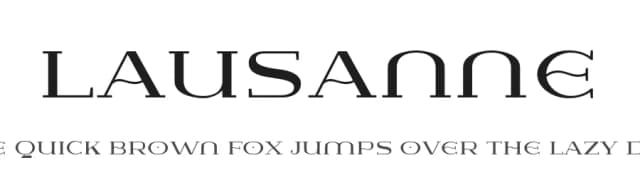
About Menscho Font
Menscho Specifications
| Designer | Situjuh Nazara |
Menscho Font is a versatile serif font that works for both headings and body text. Pair it with a contrasting sans-serif or slab serif font to add visual interest and a clear distinction between titles and body copy.
Menscho Font
by 7NTypes